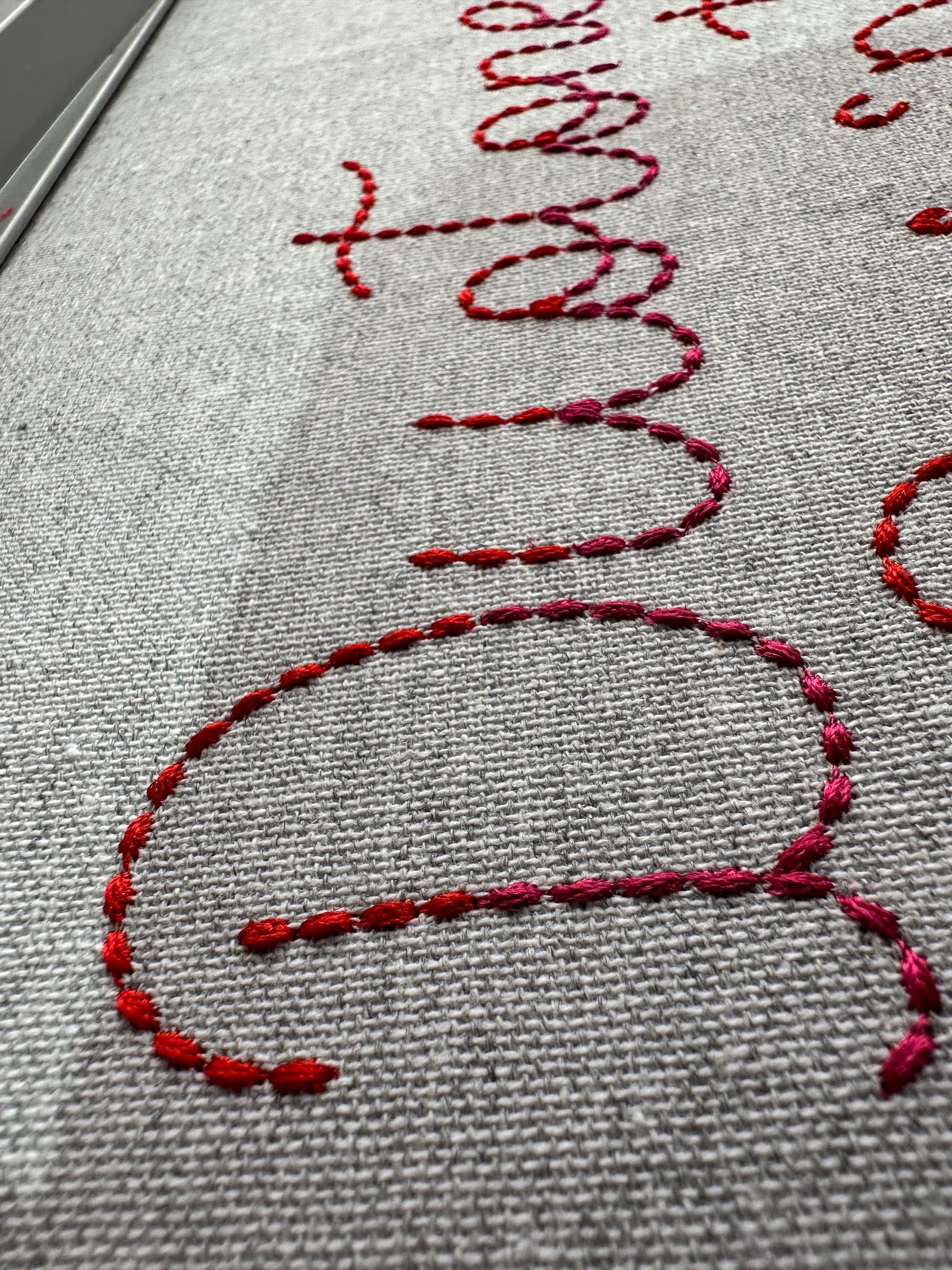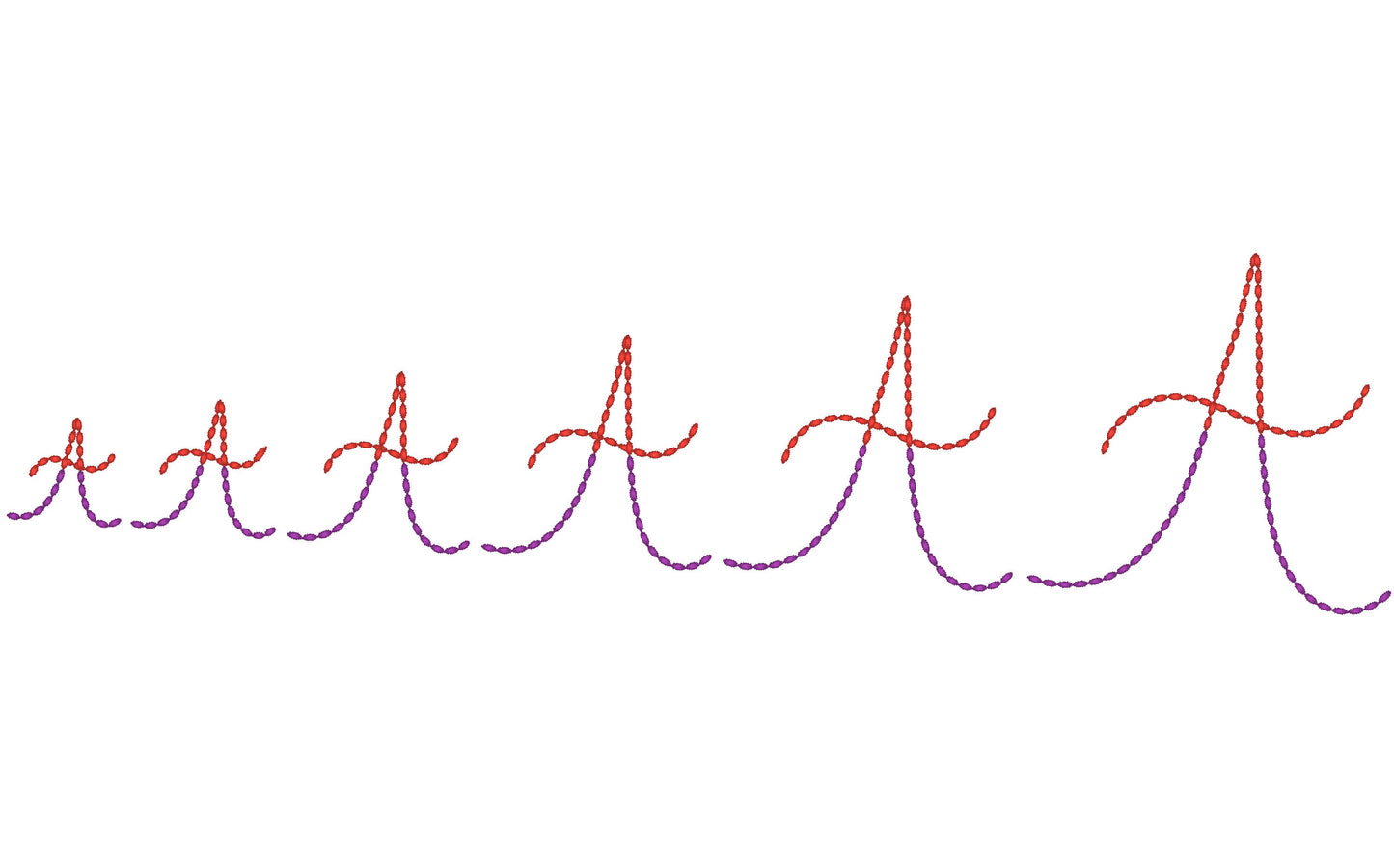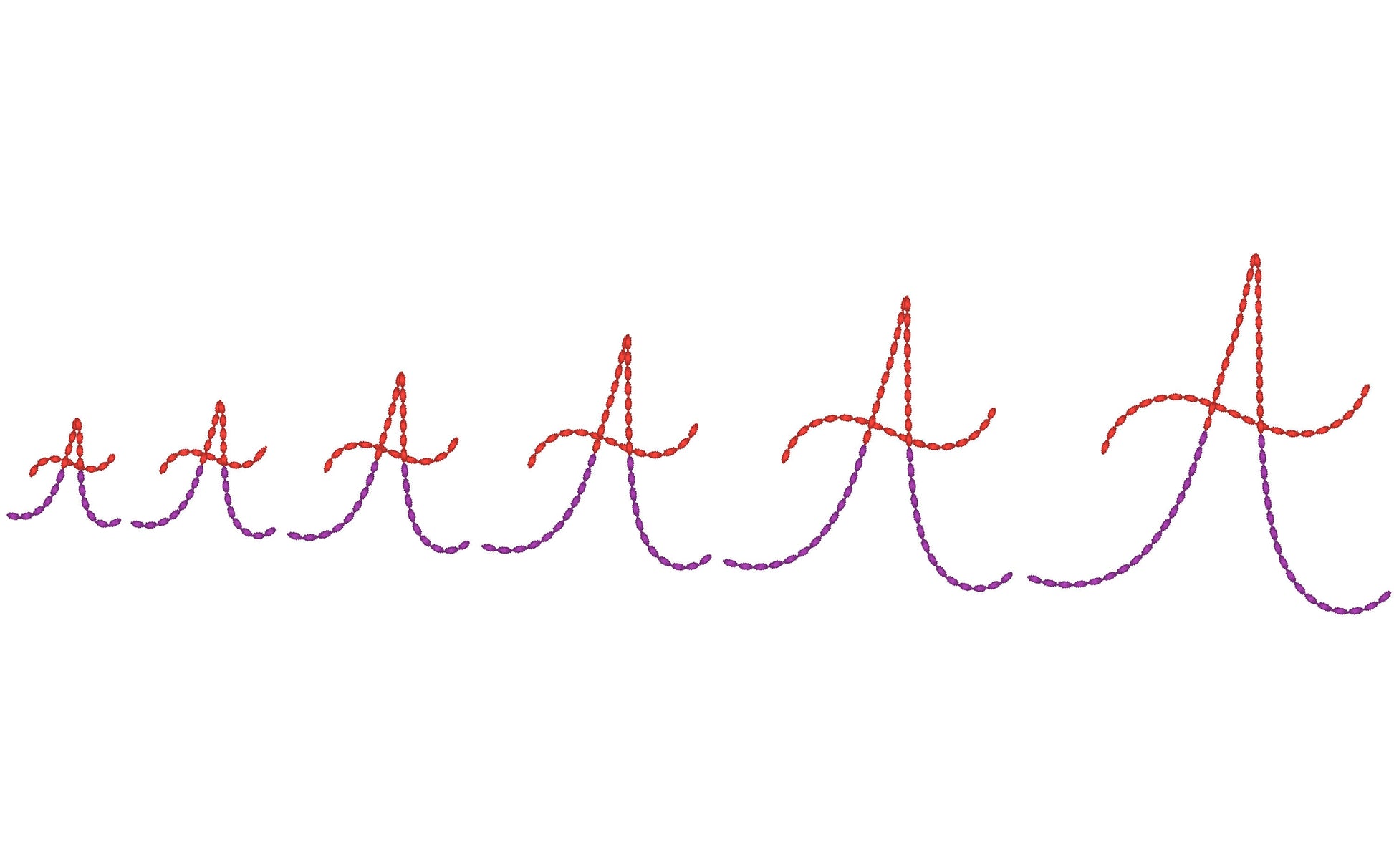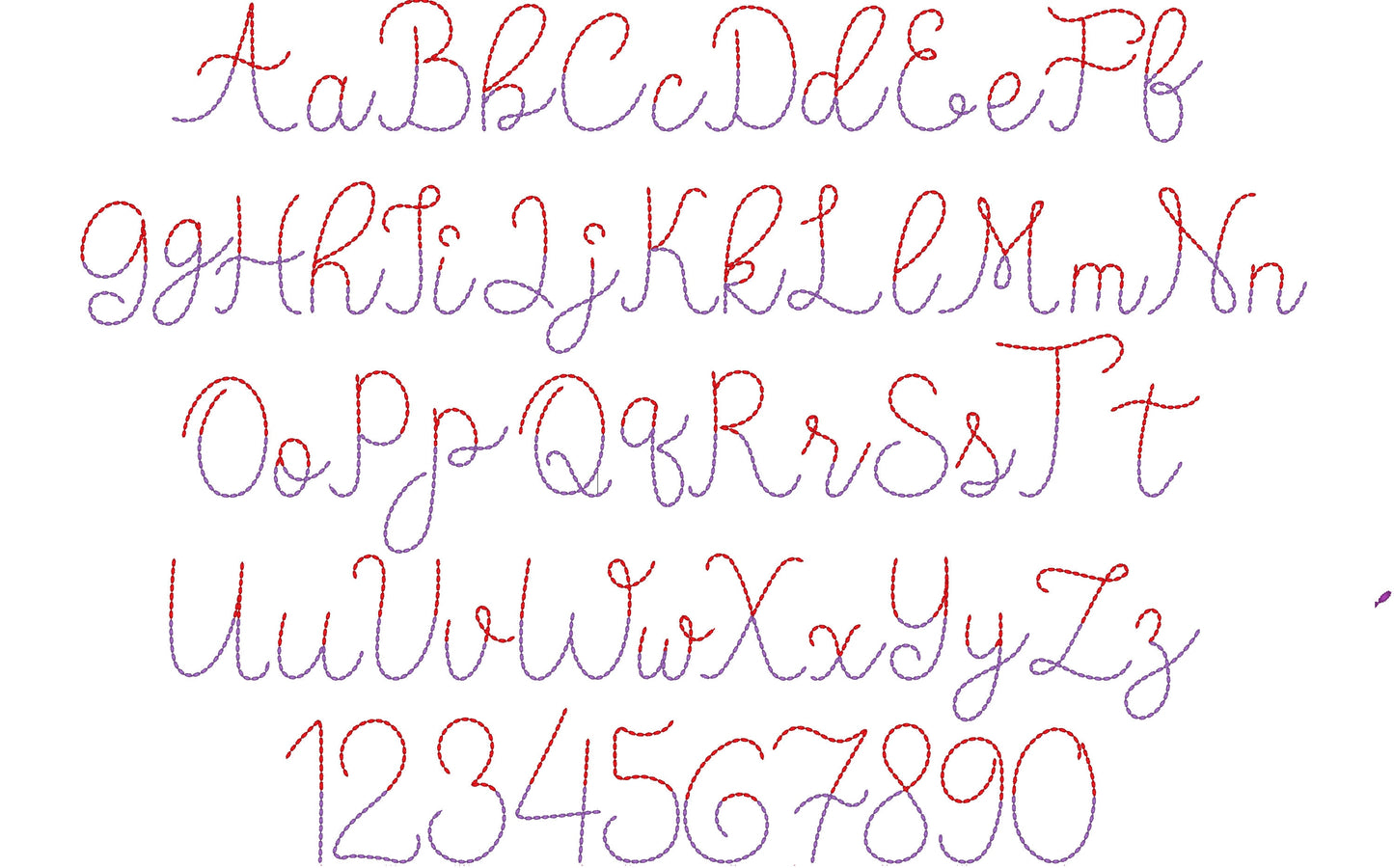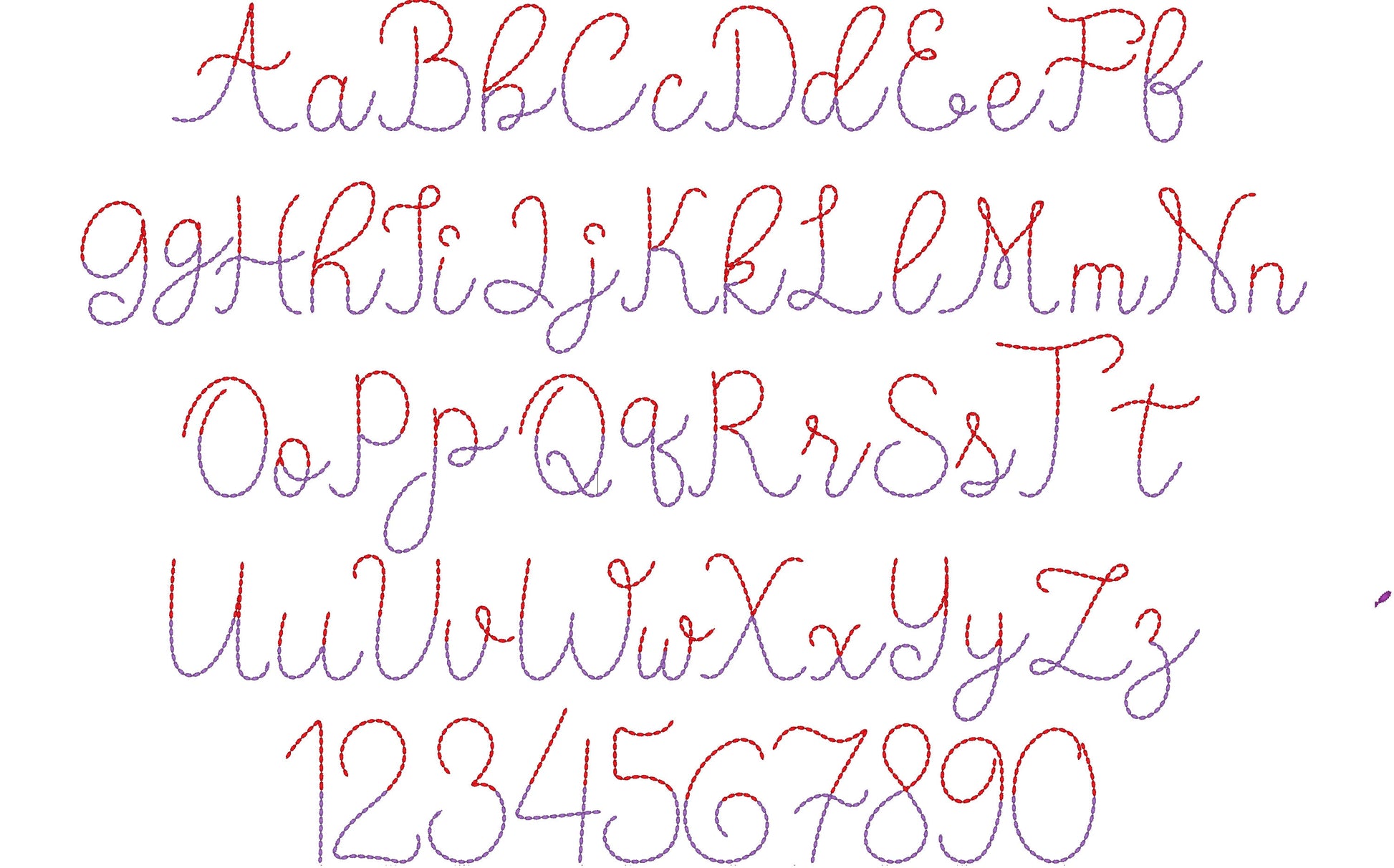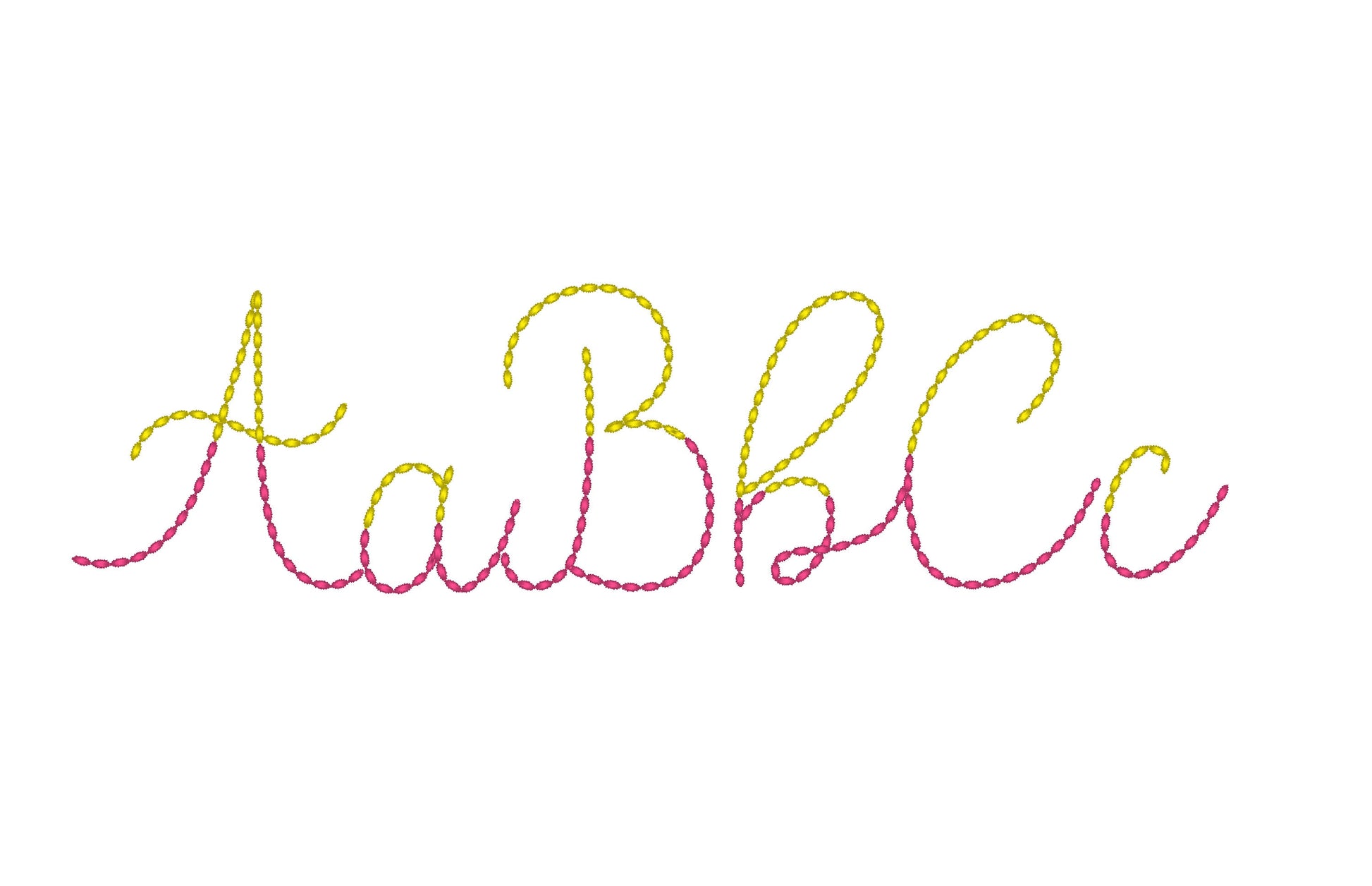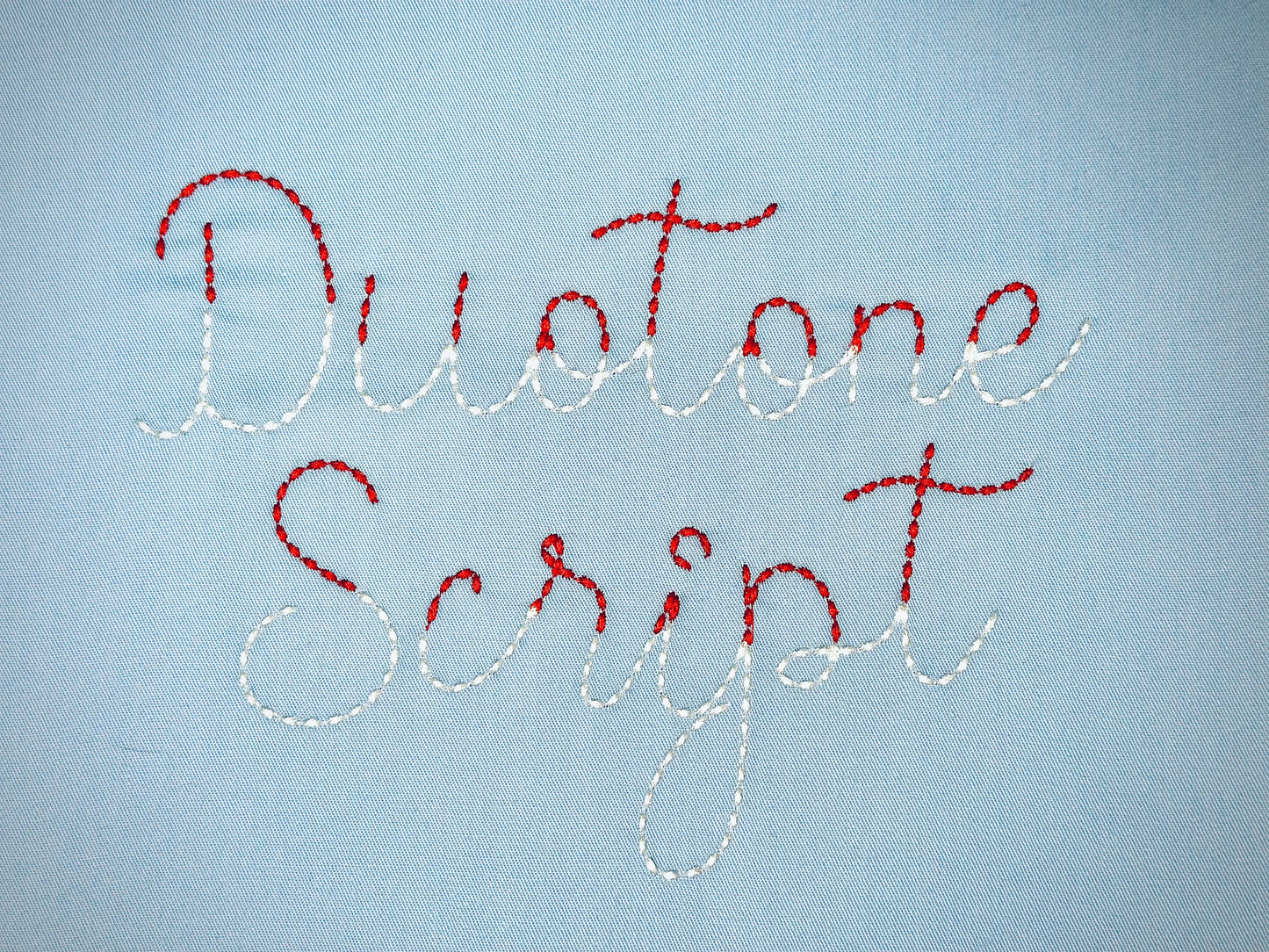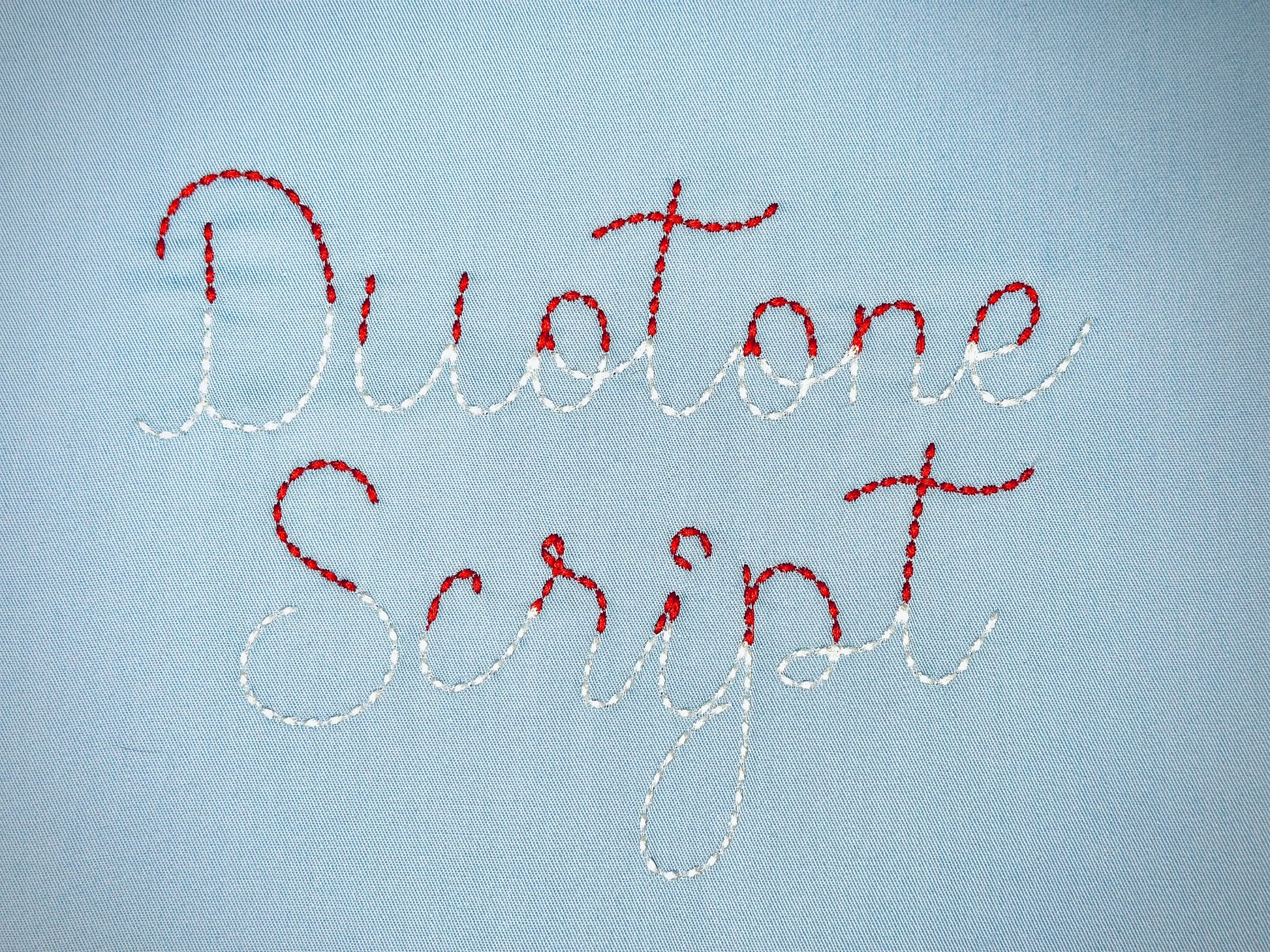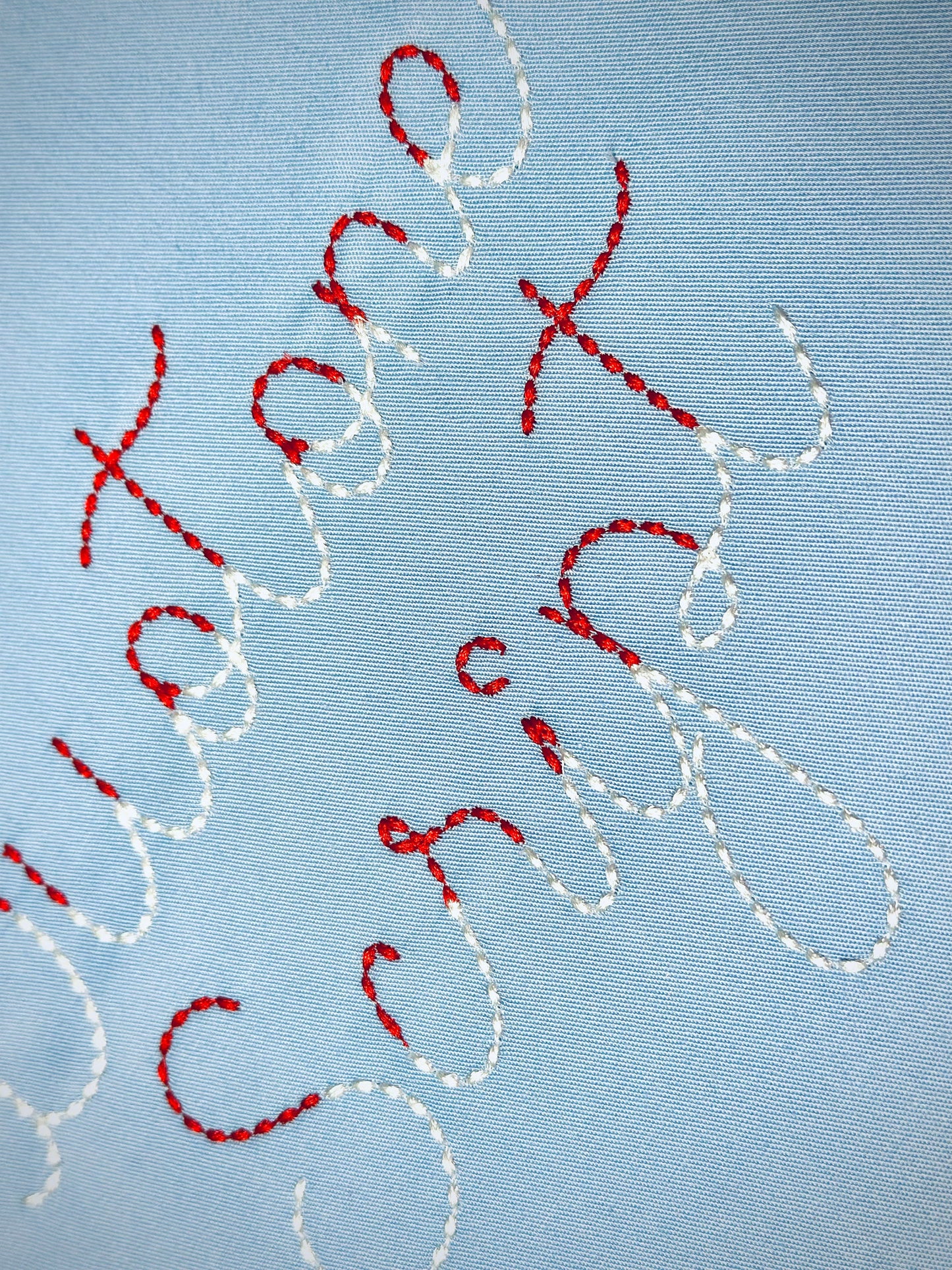
Duotone Hand Stitch Effect Font
Or click to open the linkA two-color script font with a hand-stitched look, made in a bold bean stitch. Nice for kids' names, monograms and small gifts.
The letters come in six sizes: 1.2, 1.5, 2, 2.6, 3.3 and 4 inches. Each letter is stitched in two thread colors with a bold bean stitch for a handmade feel. Includes uppercase and lowercase letters and numbers 0 to 9.
- Two-color hand stitch effect script font, bold bean stitch
- Uppercase and lowercase letters, numbers 0 to 9
- 6 sizes, 1.2 to 4 in